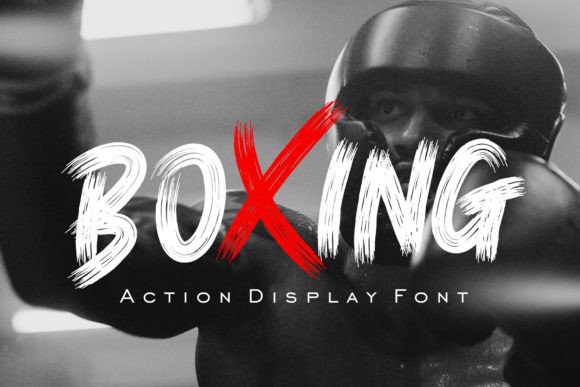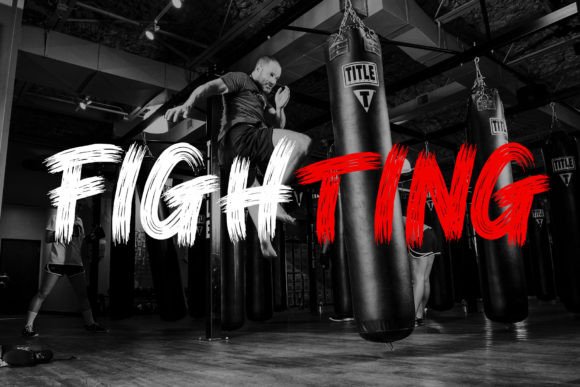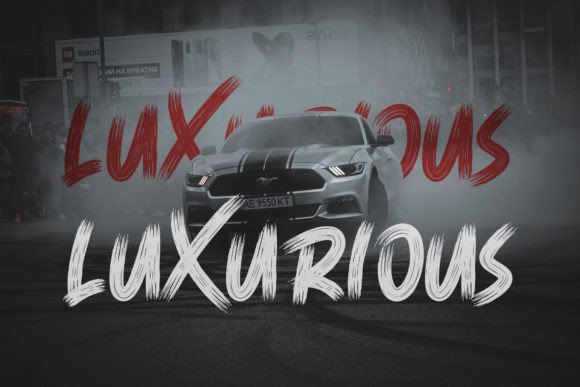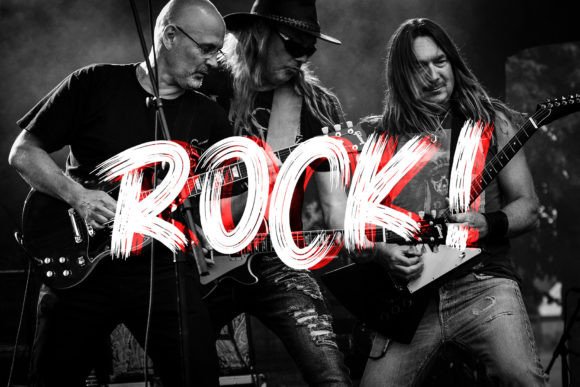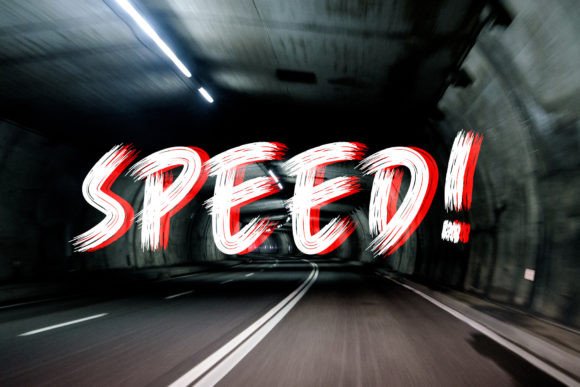
The Power of Boxing Font: Unleashing Strength and Courage in Your Designs
I’ll never forget the time I was working on a project for a fitness brand, struggling to find the perfect font that conveyed the energy and strength of their workout programs. The client wanted a font that would make their audience feel motivated and empowered, but everything I tried seemed to fall flat. That was until I stumbled upon Boxing Font, a powerful and full-of-energy brush display font that completely transformed my design. In this article, I’ll share my experience with Boxing Font, its features, and how to make the most of it in your designs.
A Personal Review: What I Love About Boxing Font
Here’s what I love about Boxing Font:
- ✨ Unique and bold style: Boxing Font has a one-of-a-kind brush display style that adds a touch of edginess to any design.
- ✅ Perfect for energetic projects: This font is inspired by the actions and challenges of boxing, making it ideal for projects that require a sense of strength and courage.
- 💪 Highly versatile: Boxing Font can be used for a wide range of projects, from fitness and sports to motivational quotes and bold statements.
While Boxing Font is an amazing font, there are a few things to keep in mind:
- 🤔 Legibility at small sizes: As with many display fonts, Boxing Font can become less legible at smaller sizes. It’s best used at larger sizes where its unique style can shine.
- ⚠️ Limited use in body text: Due to its bold and decorative nature, Boxing Font is not suitable for long blocks of body text. Stick to headings, titles, and short phrases for the best results.
Boxing Font was inspired by the raw energy and determination of boxers. The designer, who was an avid boxing enthusiast, wanted to capture the spirit of the sport in a font that would motivate and empower others. Through countless hours of research and design, Boxing Font was born – a font that’s perfect for projects that require strength, courage, and a touch of edginess.
| Font Name | Boxing Font |
| Author | Artkenza |
| What type of projects is Boxing Font best suited for? | Boxing Font is perfect for projects that require a sense of strength and courage, such as fitness and sports designs, motivational quotes, and bold statements. |
| Can I use Boxing Font for body text? | No, Boxing Font is not suitable for long blocks of body text. It’s best used for headings, titles, and short phrases. |
| Is Boxing Font available in different weights or styles? | Yes, Boxing Font comes in various weights and styles, allowing you to experiment with different looks and feels. |